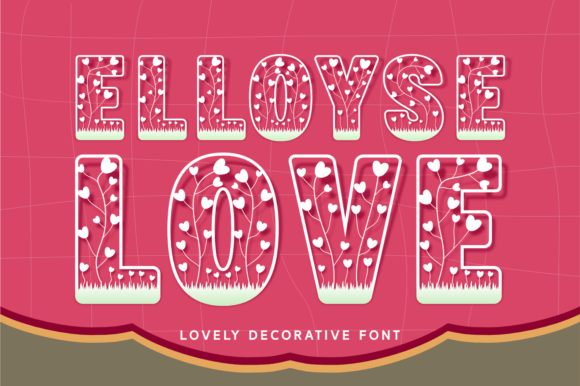
Unveil the Enchanting Elloyse Love Font: Where Elegance Meets Whimsy
Step into a world of timeless beauty with Elloyse Love, a decorative font that captivates hearts with its charming and elegant allure. Let your designs blossom with sophistication as this font weaves its magic, adding a touch of whimsy that will leave an unforgettable mark on your creations.
With its flowing lines and playful details, Elloyse Love is more than just a font; it's an artistic masterpiece that transcends the boundaries of ordinary typography. Whether you're designing wedding invitations, crafting posters, or creating captivating social media posts, this font will elevate your work to new heights.
Picture the delicate curves of Elloyse Love swirling across your wedding invitations, carrying the promise of a love that knows no bounds. Imagine your posters blooming with elegance as this font dances across the page, enticing viewers with its enchanting beauty. And envision your social media posts captivating audiences with a touch of whimsy, leaving a lasting impression that will keep them coming back for more.
Elloyse Love is not just a font; it's an experience. It's a journey into a world where creativity and imagination are boundless, where beauty takes center stage, and where your designs become works of art. Embrace the allure of Elloyse Love and let your creativity soar to new heights.